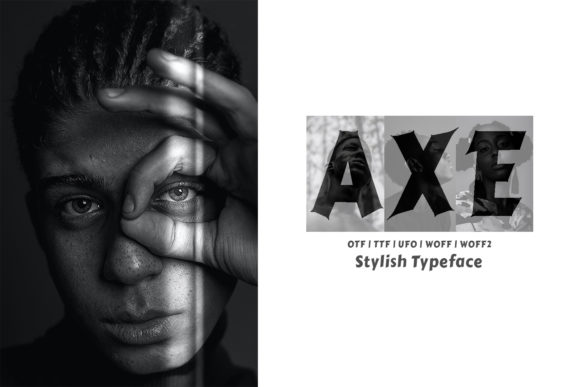
The Axe Font: A Bold and Versatile Display Font for Creative Projects
I’ll never forget the moment I stumbled upon the Axe font while working on a branding project for a fictional outdoor gear company. I was struggling to find the perfect font that would convey the rugged, adventurous vibe my client was looking for. That’s when I discovered Axe – a bold and chunky lettered display font that instantly caught my attention. In this article, I’ll share my experience with the Axe font, its features, and how to make the most of it in your creative projects.
An Honest Review of Axe Font
What I Love About Axe Font
- ✨ Bold and eye-catching: Axe font is perfect for making a statement in your designs. Its chunky letters demand attention and add a touch of confidence to your project.
- ✅ Versatile: Axe font matches a wide pool of designs, from outdoor and adventure-themed projects to bold and edgy branding.
- 💡 Easy to read: Despite its boldness, Axe font remains surprisingly legible, even at smaller sizes.
While Axe font is an excellent choice for many projects, there are a few things to keep in mind:
- 🤔 Limited use in body text: Due to its boldness, Axe font might not be the best choice for lengthy body text. It’s better suited for headings, titles, or short phrases.
- ⚠️ Overuse can be overwhelming: As with any bold font, be cautious not to overuse Axe font in your design. Balance it with other fonts or elements to maintain visual harmony.
The Story Behind Axe Font
Axe font was designed with the goal of creating a bold, attention-grabbing display font that would stand out in any design. The designer, inspired by the ruggedness of outdoor gear and the confidence of adventure-seekers, crafted Axe font to be a versatile and reliable choice for creative projects.
Q: What type of projects is Axe font best suited for?
Axe font is perfect for bold and creative projects, such as branding, posters, flyers, and social media graphics.
Q: Can I use Axe font for body text?
While Axe font is legible, it’s better suited for headings and short phrases. For longer body text, consider using a more traditional font.
Q: Is Axe font available in different weights or styles?
Axe font is a single, bold font, but it does offer some OpenType features, such as glyphs and stylistic alternates, to provide variation.